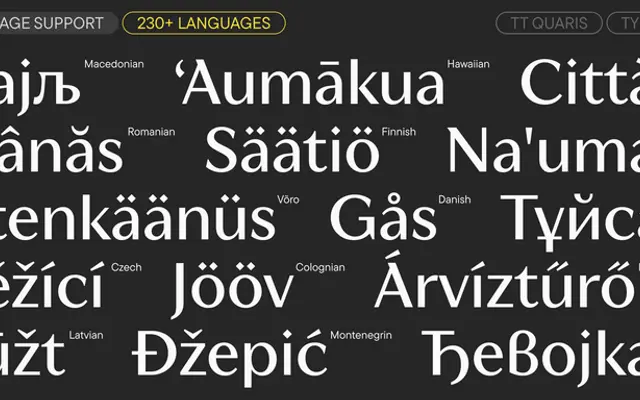
TT Quaris
TypeType · Antonina Zhulkova, Anna Kondrashova, Lada Sobchenko, Roman Avdushkin · 2025
A high-contrast display sans from TypeType, built for luxury branding and editorial work, with an optional spiky stylistic set that shifts its character from refined to provocative.
Developed over two years and 2,500 hours, TT Quaris pairs fluid, rounded letterforms with sharp details including a geometric apex on the 't', diamond-shaped punctuation and optional spurs via the SS01 OpenType feature. The family spans six upright and six italic styles plus two variable fonts on a weight axis, with true italic forms that are narrower and lighter than the uprights. Coverage extends to over 230 languages across Latin and Cyrillic, and the glyph set includes medieval-themed ornamental icons alongside 29 OpenType features.
A high-contrast display sans with marked stroke variation akin to a serif but without serifs, placing it firmly in the display category; the optional spiky stylistic set (SS01) adds sharp spurs and spikes, extending its expressive range further toward the decorative end of the spectrum.